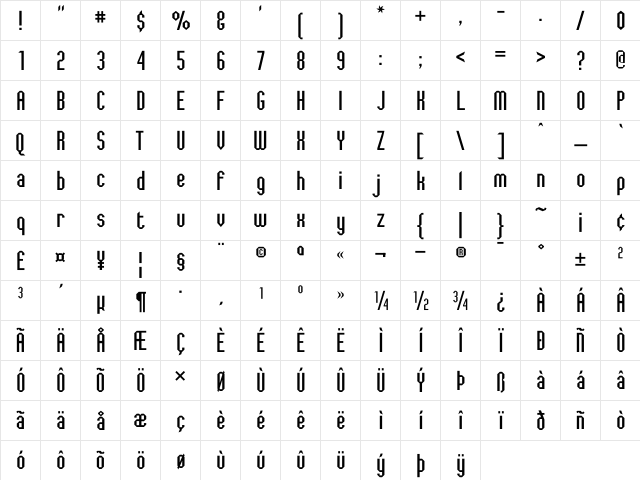
Jagged Dreams Regular
| Foundry | Graham Meade |
Design Context for Jagged Dreams Typeface
Jagged Dreams offers clean, dependable letterforms without strong stylistic allegiance, making it a practical choice for designers who need flexibility.